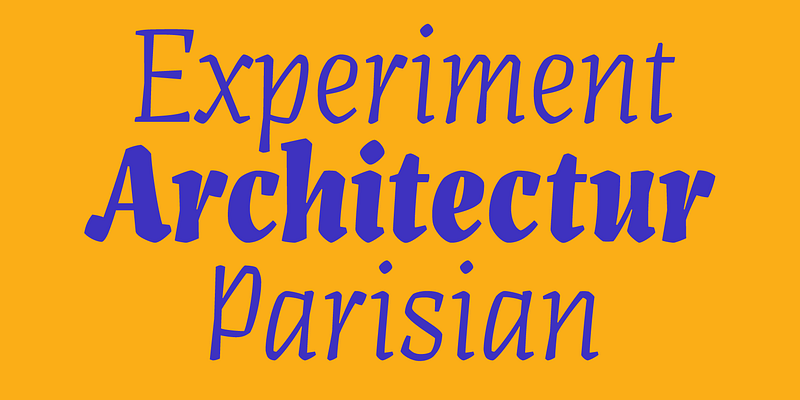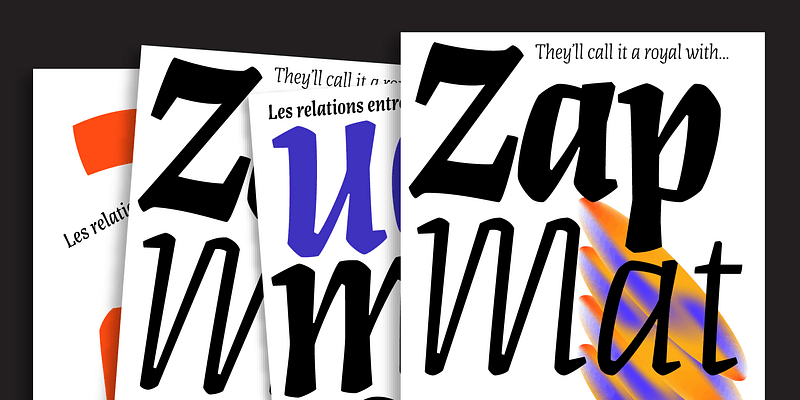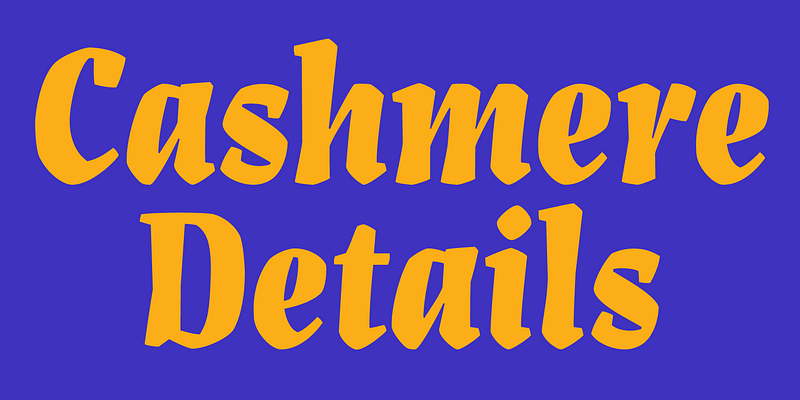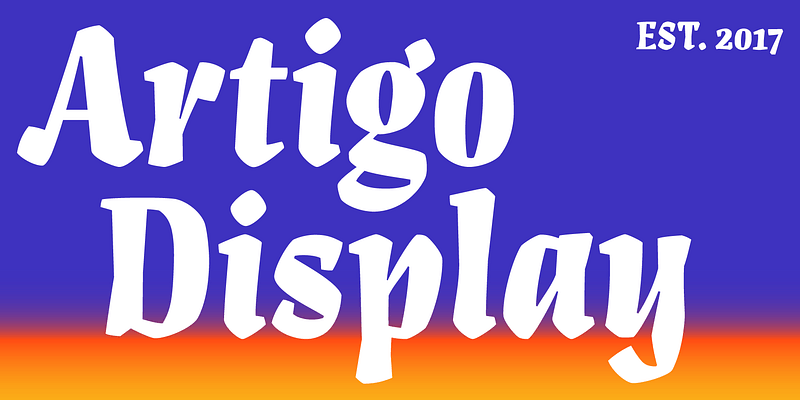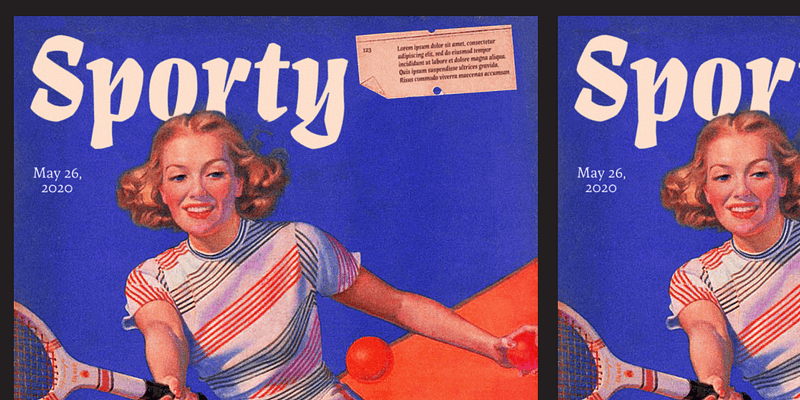
Artigo Display is the odd sister of Artigo text typeface. It is a contemporary interpretation of handwriting shapes. We added five new weights that bring flexibility to use the typeface in different mediums.